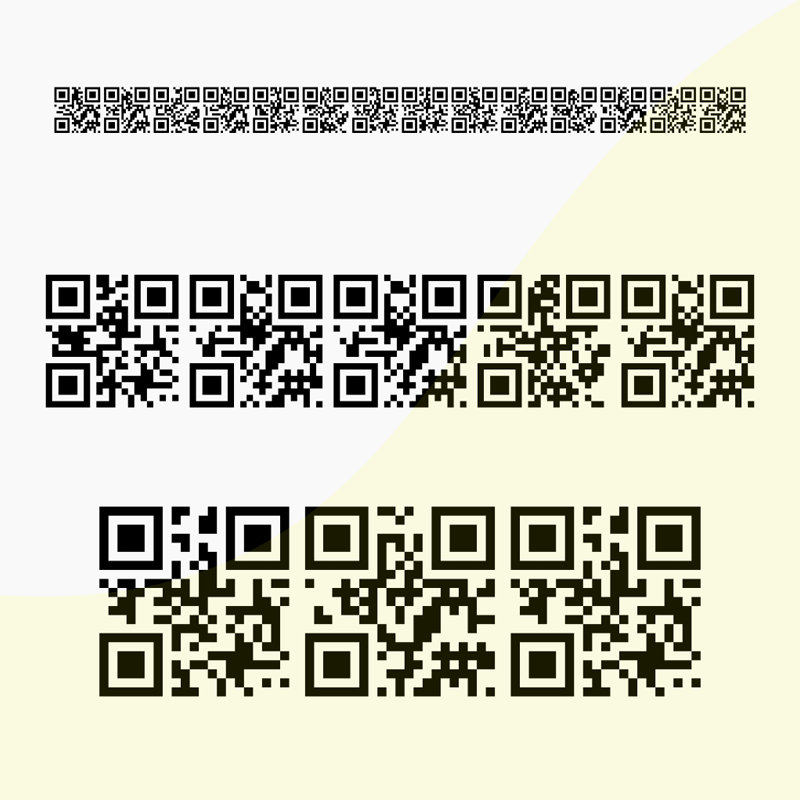
AlphanumericQR is a typeface containing characters of the alphabet and numbers based on QR-Code generator. update: AlphanumericQR v2.0 with some character. |